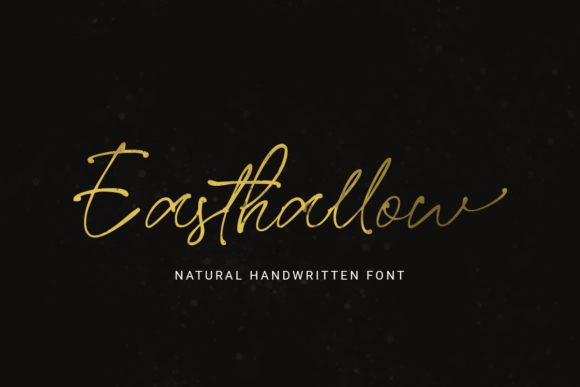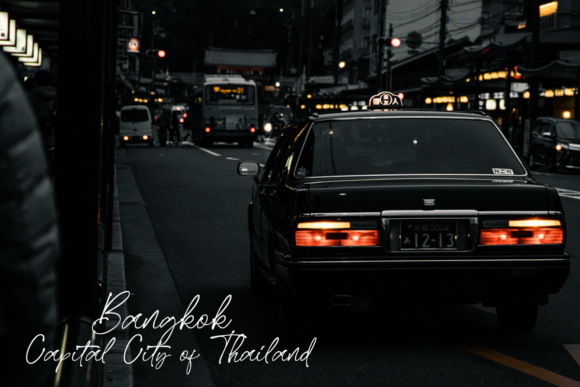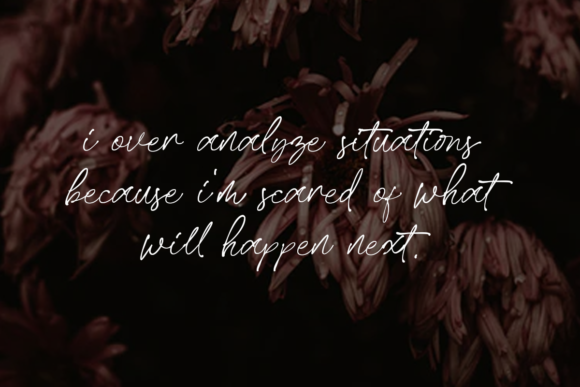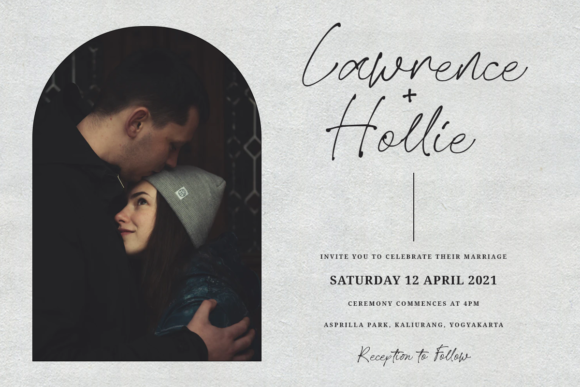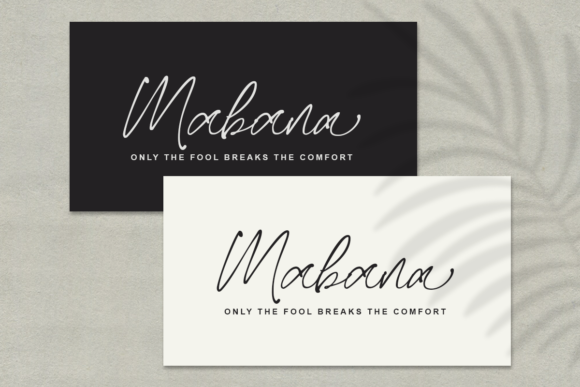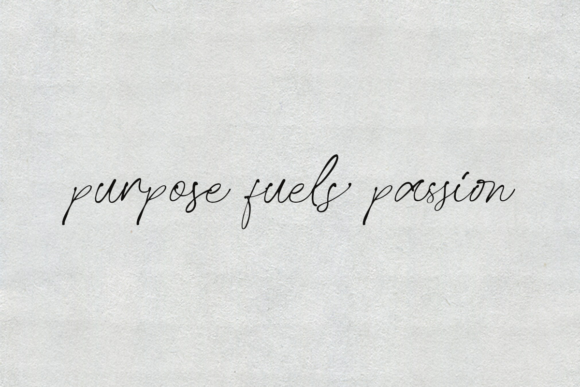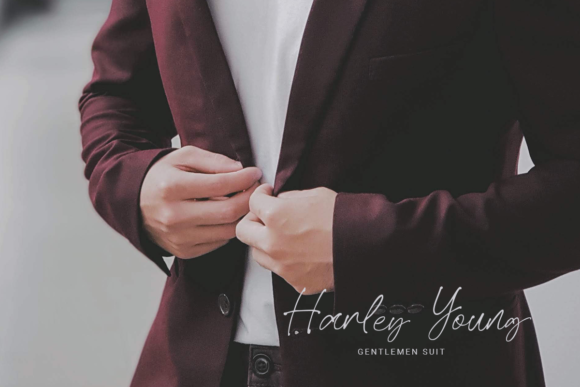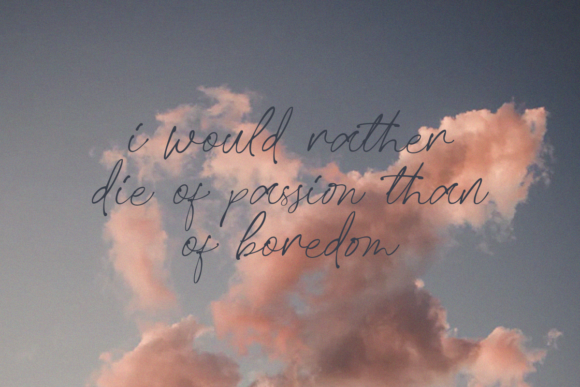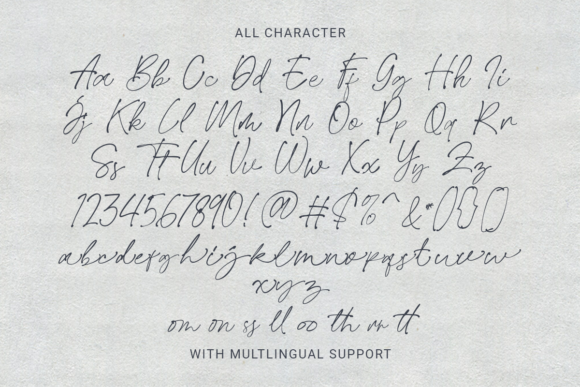
Easthallow Font
About Easthallow Font
Introducing “Easthallow,” a thin and elegant handwritten font that brings a natural touch to your designs. With its graceful and delicate strokes, Easthallow is the perfect choice for creating refined and sophisticated designs.
Easthallow lends an air of elegance and authenticity to your projects, making it ideal for signature logos that require a personal and distinctive touch. Whether you’re a photographer, a fashion brand, or a creative professional looking to establish a unique visual identity, Easthallow will help you create a logo that leaves a lasting impression.
Capture the romance and beauty of special occasions with Easthallow. This font is well-suited for wedding invitations, as it adds a touch of refinement and sophistication to your designs. The thin and elegant letterforms create an ethereal and graceful aesthetic, setting the tone for a memorable and enchanting event.
Create a cohesive and polished brand identity with Easthallow. Whether you’re developing branding materials for a boutique, a high-end service, or a luxury product, this font will bring a sense of elegance and professionalism to your designs. Use it for business cards, stationery, packaging, and other marketing collateral to convey a refined and sophisticated brand image.
Easthallow’s thin and graceful strokes make it a versatile choice for various design projects. From editorial layouts to social media graphics, the font adds a touch of sophistication to your visual compositions. Its natural and flowing appearance creates a harmonious balance and draws attention to the content of your designs.
Infuse your digital and print materials with Easthallow’s elegant charm. Whether you’re designing blog headers, magazine covers, or promotional materials, this font will elevate your designs and make them stand out. Its thin and delicate nature creates a subtle yet impactful visual presence.
Easthallow is designed to be versatile and user-friendly, allowing you to effortlessly incorporate it into your design workflow. The font’s legibility and timeless elegance make it suitable for a wide range of applications. Its PUA encoding ensures easy access to all the glyphs and swashes, allowing you to fully explore the font’s potential.
Unlock the beauty and sophistication of Easthallow and let it breathe life into your designs. Whether you’re designing for personal or professional projects, this font will add a touch of refinement and elegance. With Easthallow, your designs will exude a natural and effortless charm that captivates viewers and leaves a lasting impression.
Choose Easthallow and let its thin and elegant letterforms transform your designs into works of art. Whether you’re creating wedding invitations, branding materials, or any other design project that requires a refined aesthetic, Easthallow will be your trusted companion. Embrace its grace and sophistication, and watch as your designs come to life with timeless beauty and elegance.